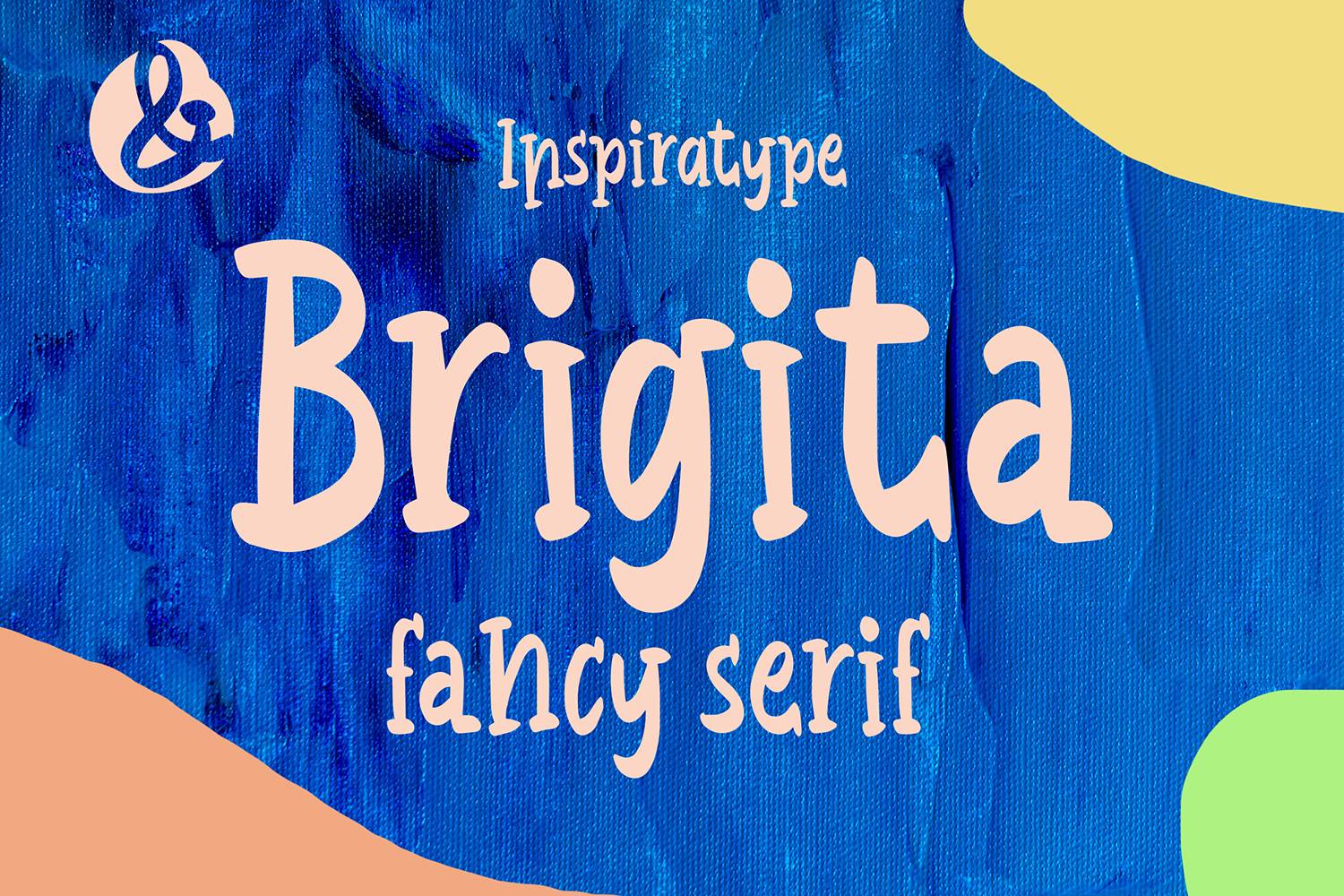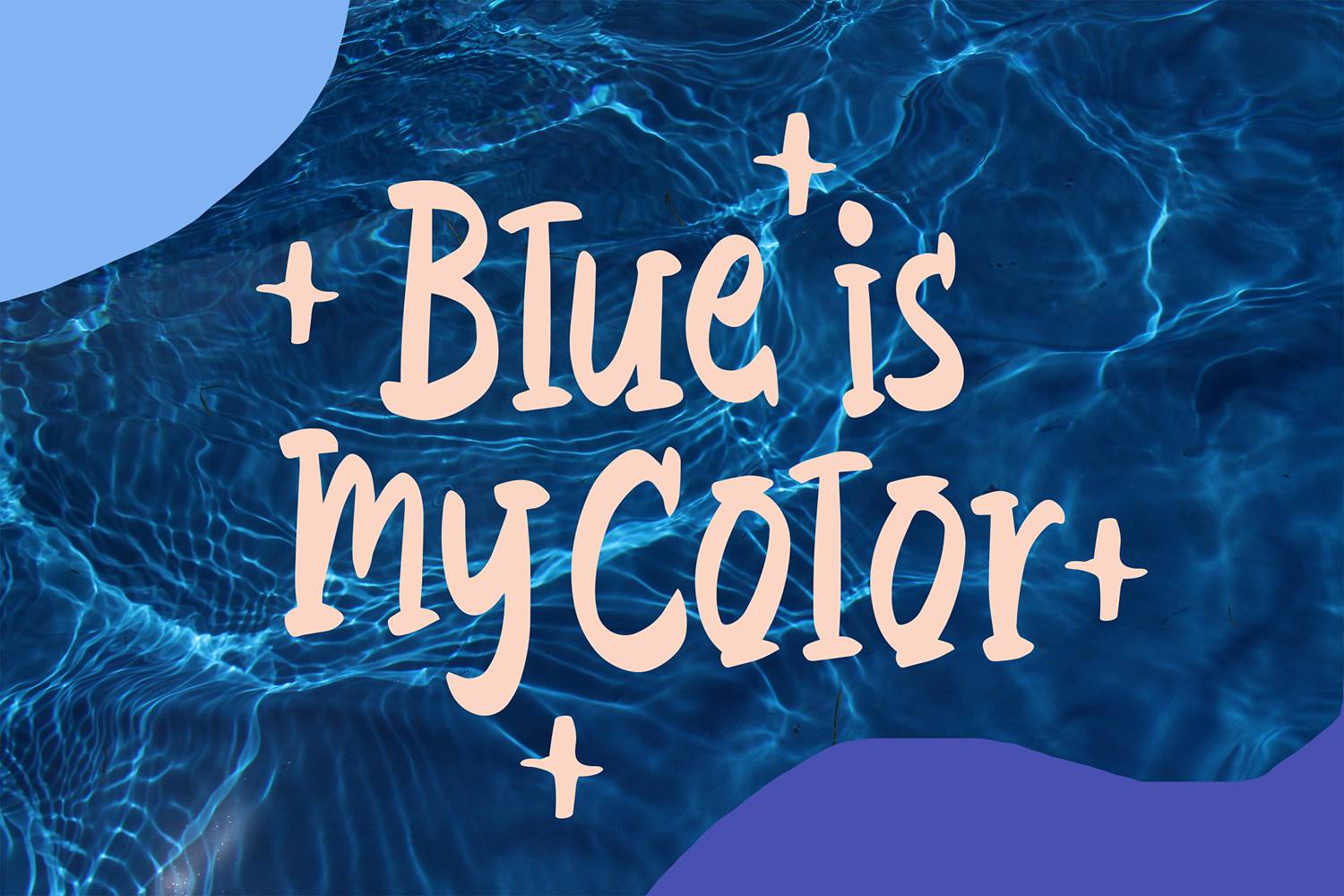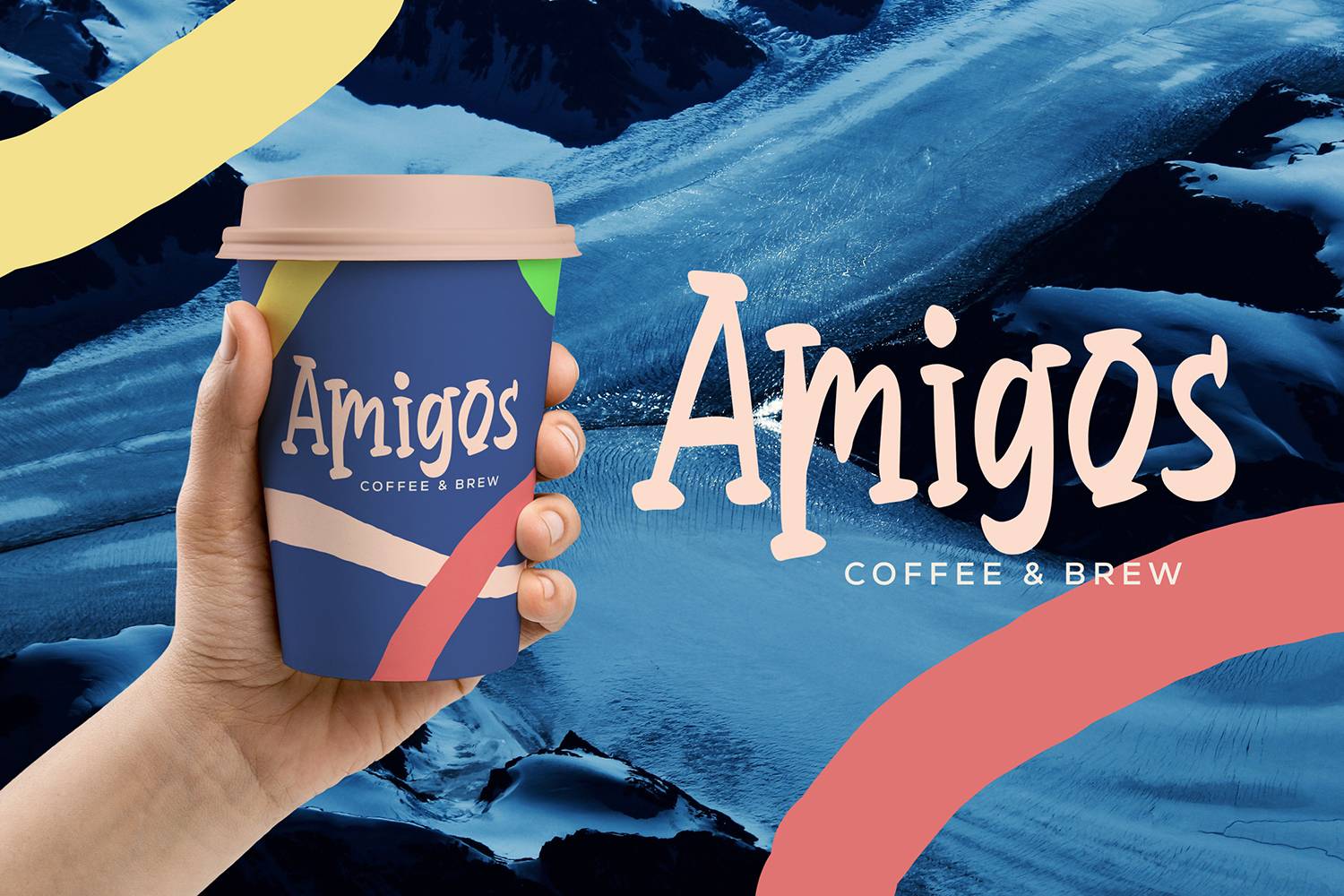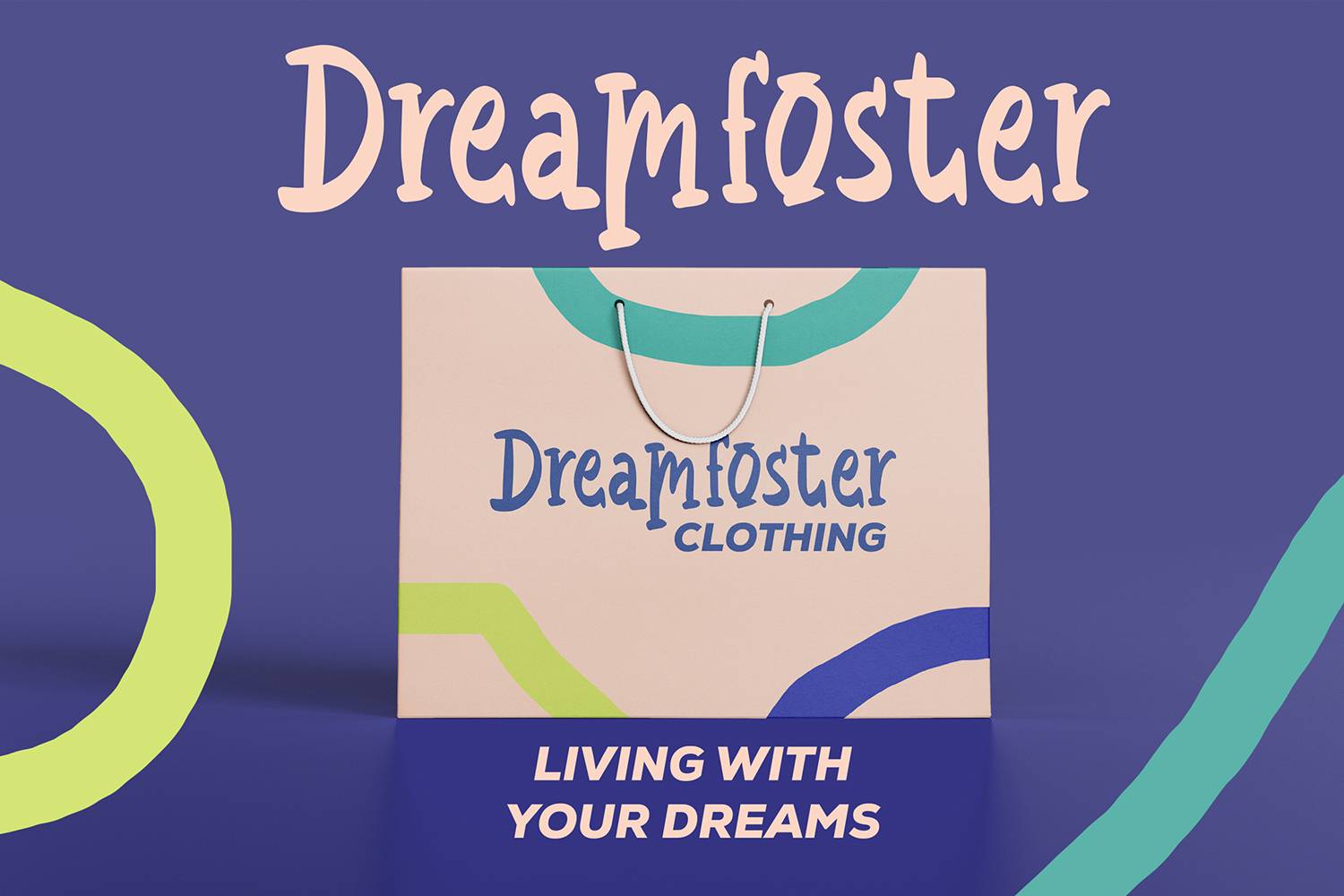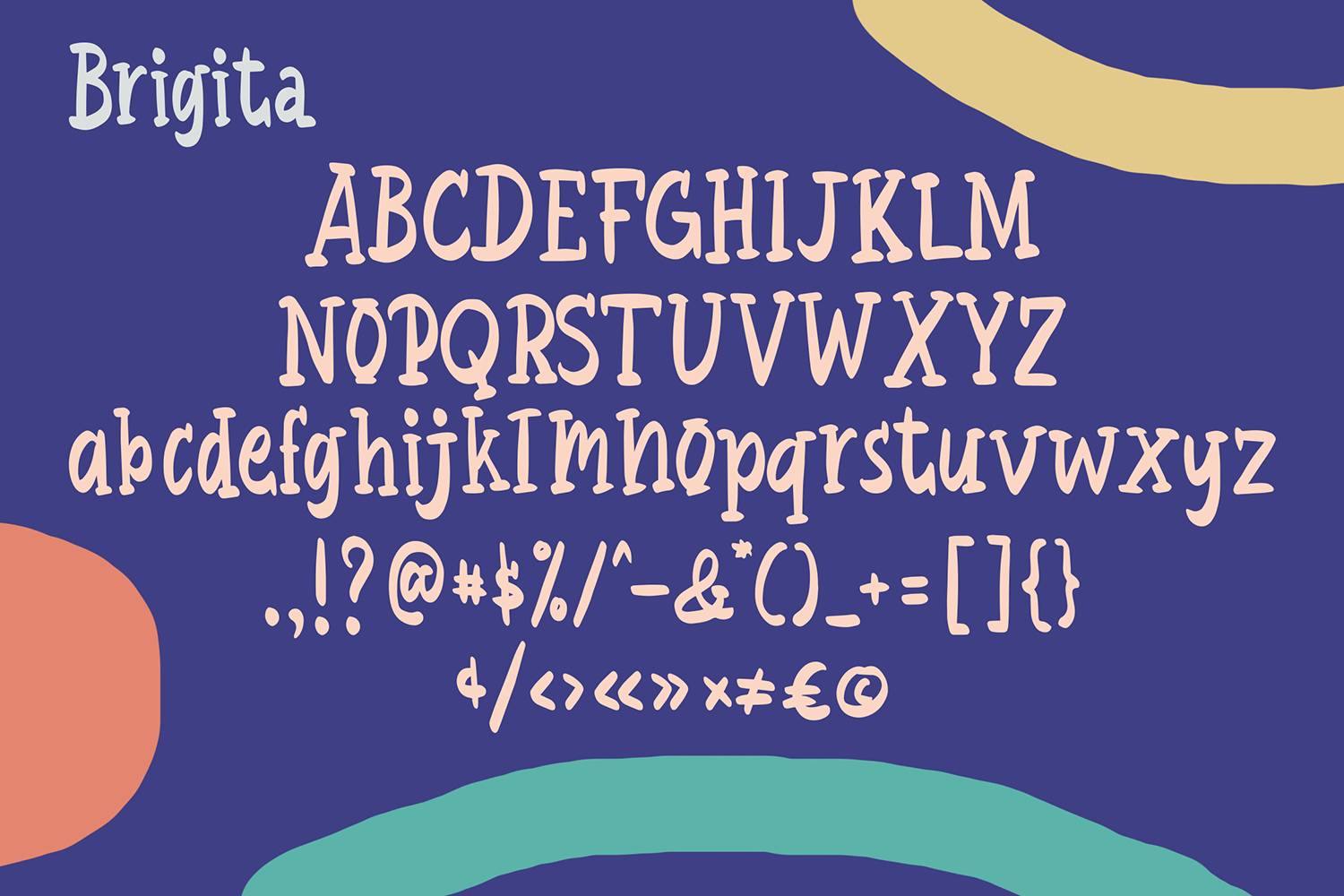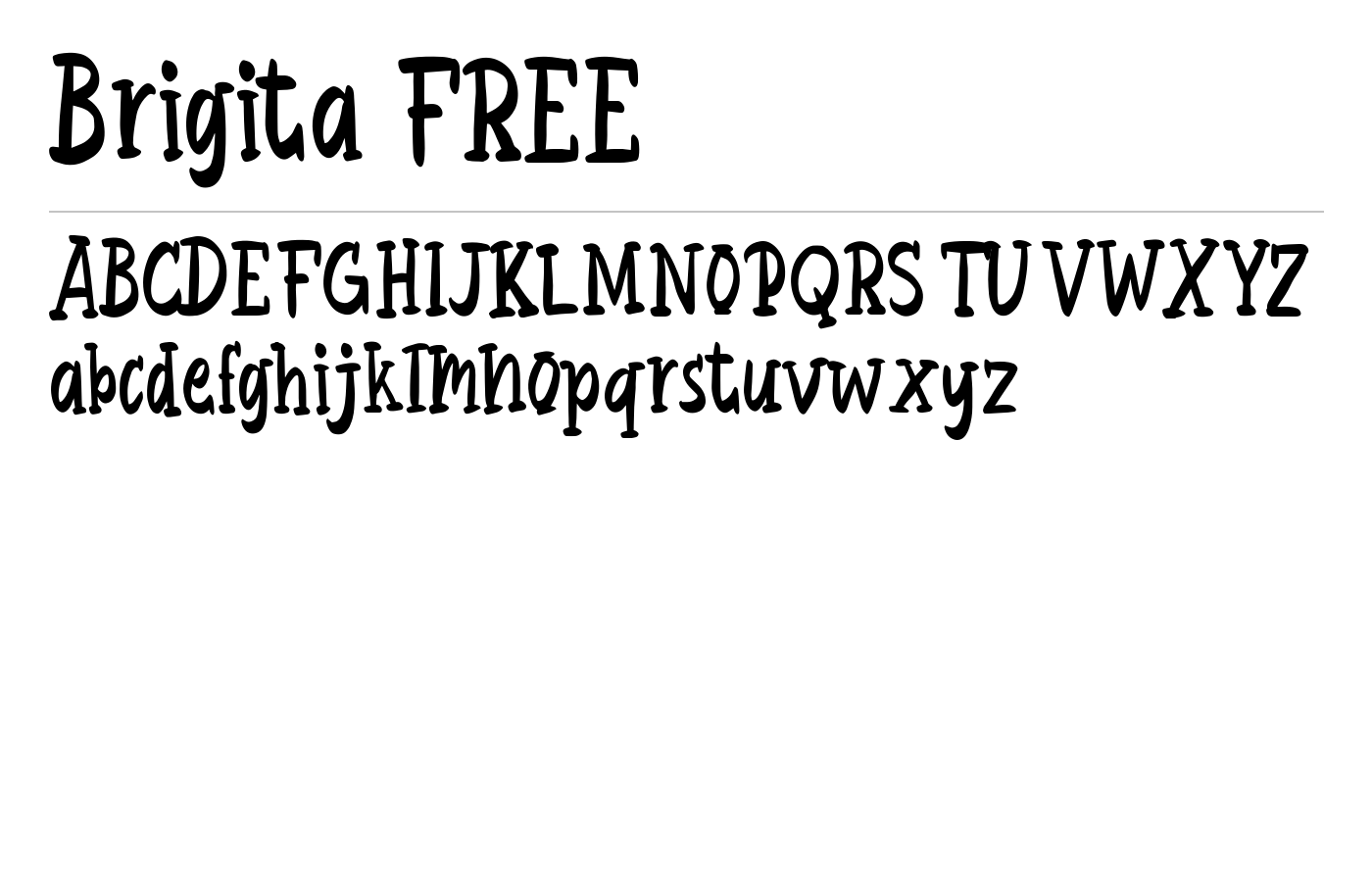
Brigita is a playful serif font with a friendly, hand-drawn feel, featuring irregular strokes and a slightly quirky character in its letterforms. Its medium weight and casual style make it perfect for informal, creative projects like children's books, greeting cards, or branding that aims for a warm, approachable vibe. This font works well in headlines or display text where personality and charm are key.
Brigita Font
About Brigita Font
| Font family | Brigita Font |
| Designer | Inspiratype |